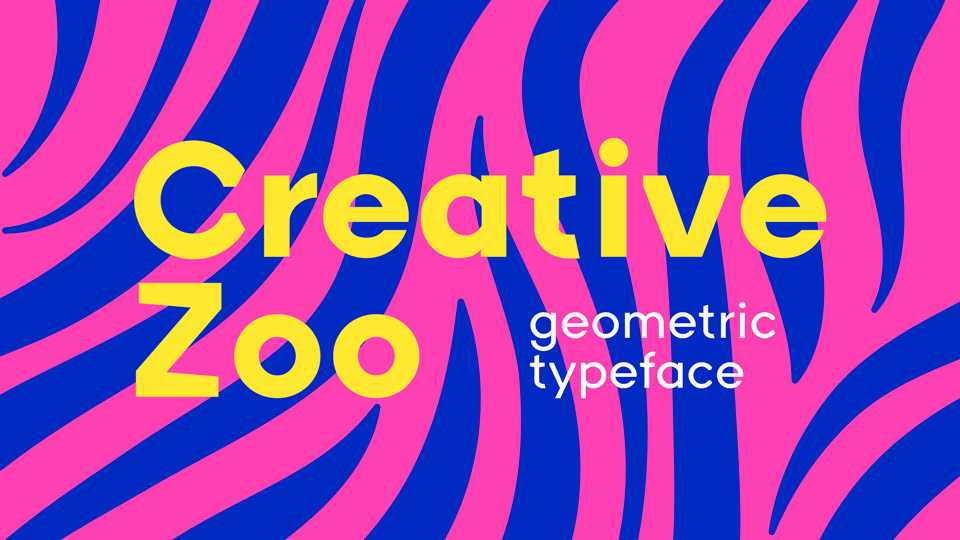
Download Creative Zoo typeface, a geometric sans serif font family in 5 weights with Roman and Italic styles and a few sharpened edges. Creative Zoo font family works great both for headlines and texts.
Designer: René Sorensen